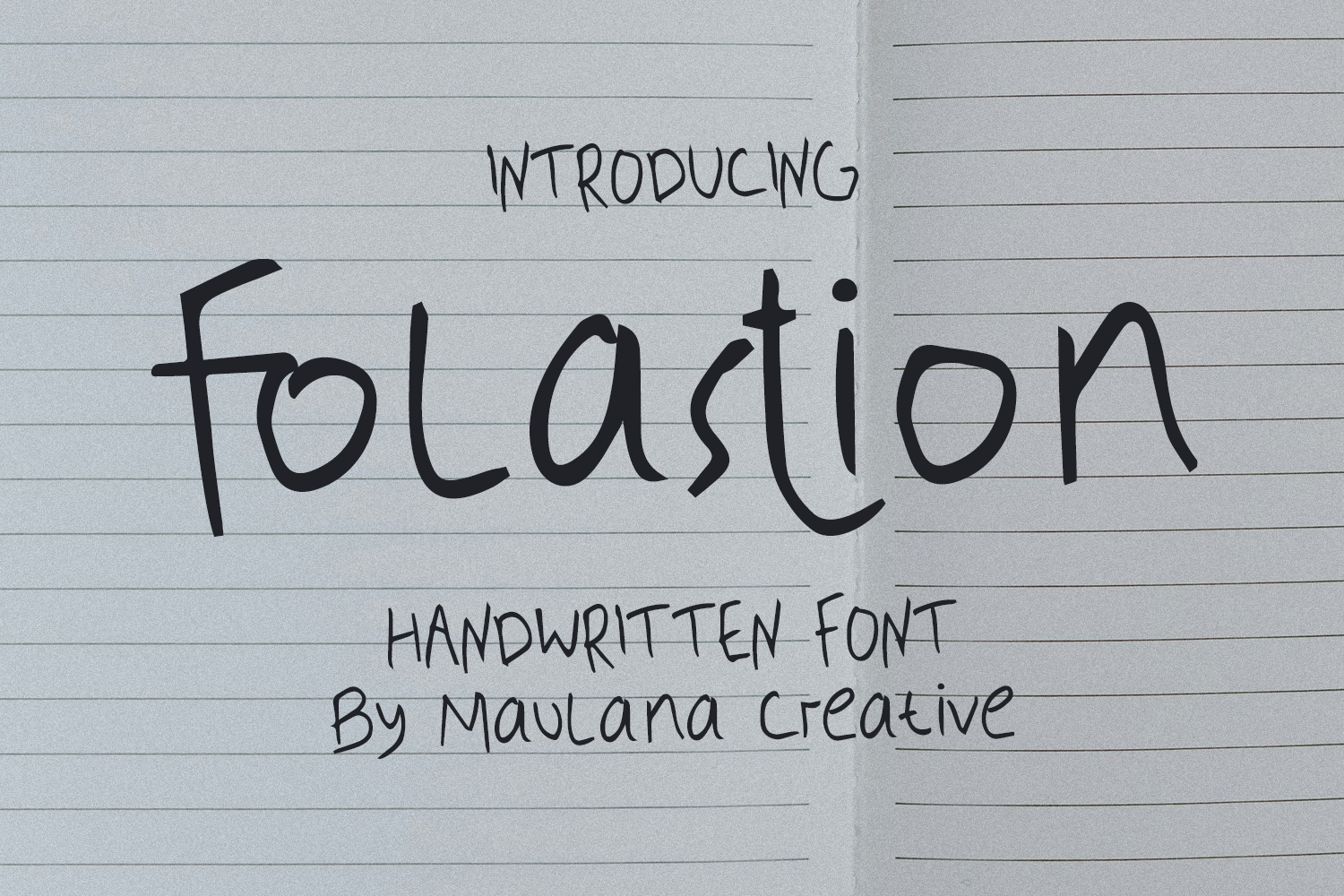
Give your designs an authentic handcrafted feel. “Folastion Story Handwritten Font” is perfectly suited to stationery, logos and much more. Include ligature characters.